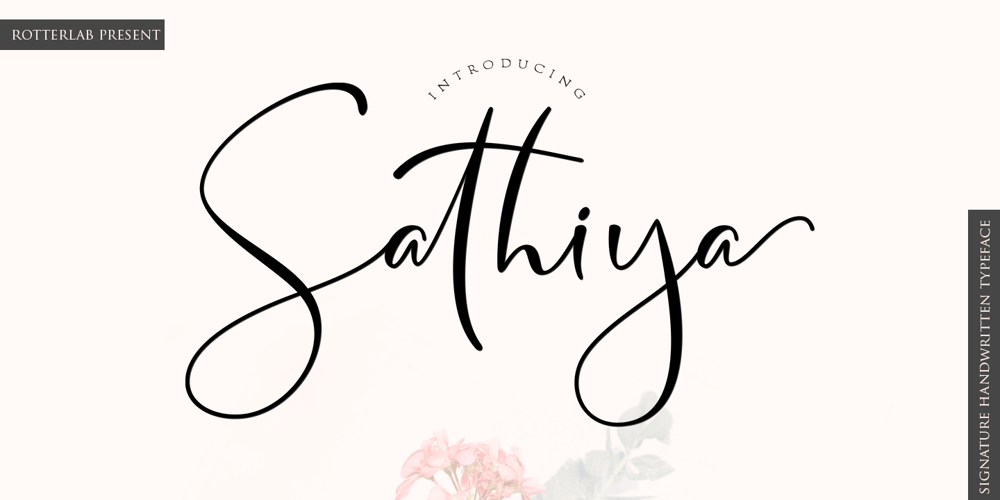
Sathiya Font Family was designed by Sidiq Fahmi and published by Rotterlab Studio. Sathiya contains 1 styles and family package options. Sathiya is a modern calligraphy font with sophisticated messy ink accents. It is perfect for branding, packaging design.Sathiya includes full set of lovely uppercase and lowercase letters, multilingual symbols, numerals, punctuation and ligatures. All lowercase letters include beautiful and unique (each letter has own “unpatterned” ending) beginning and ending swashes. Also, includes following multilingual symbolsIn order to use the beautiful swashes, you need a program that supports OpenType features such as Adobe Illustrator CS, Adobe Photoshop CC, Adobe Indesign and Corel Draw.The swashes are called alternative style. For example, letter “a” with beginning and ending swashes are alternative style for “a”. In order to access you need them you need to open Glyphs panel.Photoshop has a glyph panel where you can find alternates and ligatures Select the Nagatha Christie font and go to Window Glyphs and double-click on the glyph you want to use. To open from Illustrator, please, follow: Window –Types –Glyphs.-Photoshophttps://www.youtube.com/watch?v=Go9vacoYmBw-Illustratorhttp://youtu.be/iptSFA7feQ0nnThanks and have a wonderful day.